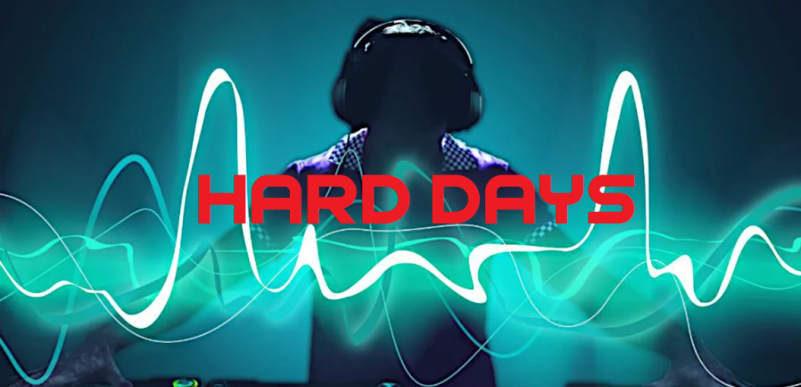
Hard Days Font Free, by Vladimir Nikolic is a sans serif stunning when combined or separately. This sans serif font style is legible and stunningly designed.
Hard Days Font